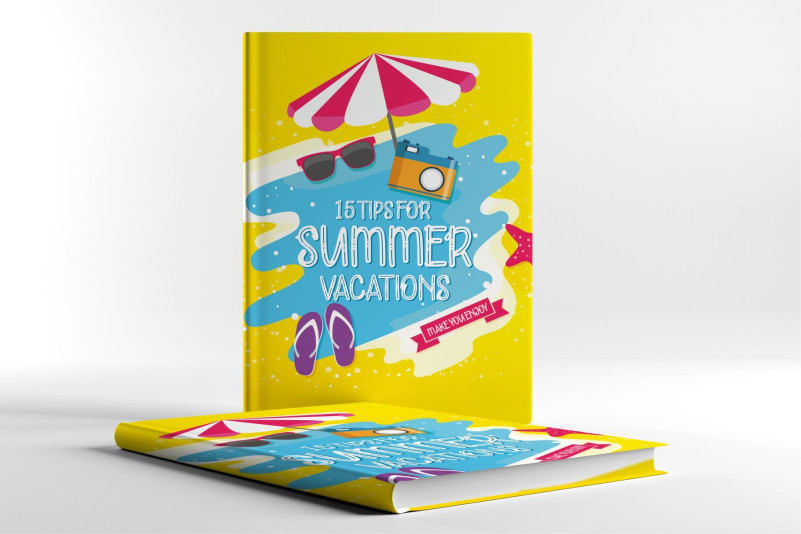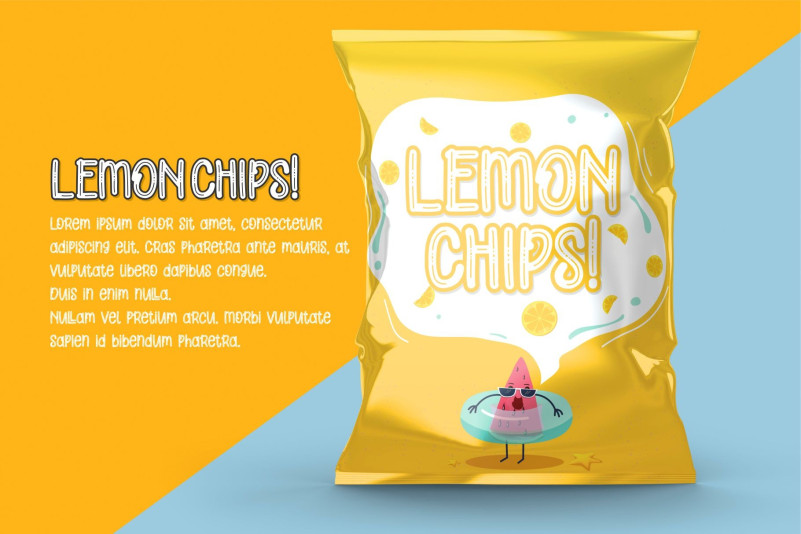
Striped Cats Display Font is a fun, hand-drawn font in a friendly marker style. Perfect for playful design ideas, comics and cartoons.
| Designer Name: | Måns Grebäck |